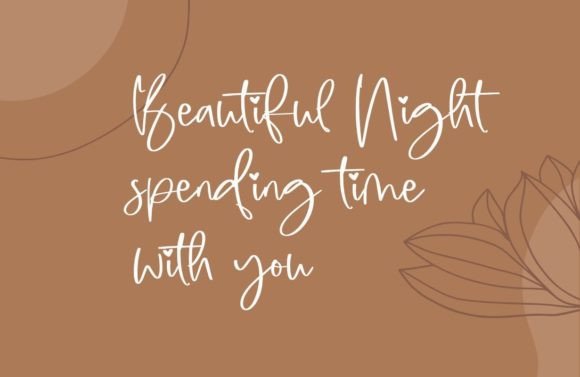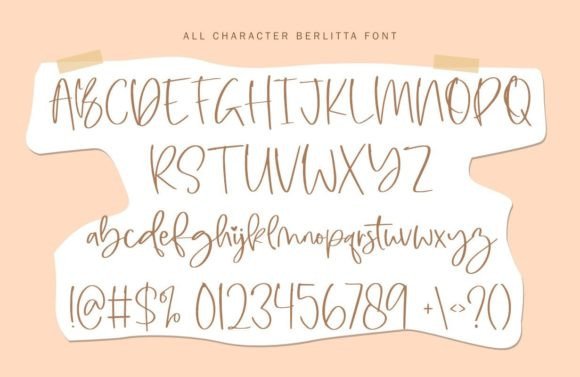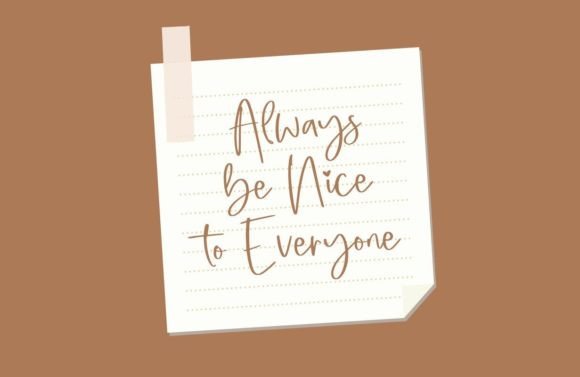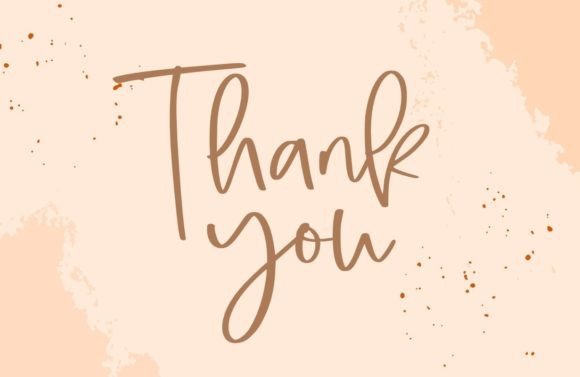
Berlitta Font
About Berlitta Font
Berlitta is an enchanting handwritten font, characterized by its flowing and graceful strokes, complemented by an elegant touch that makes it perfect for a variety of creative projects. This font invites you to infuse your favorite endeavors with a distinct charm and aesthetic appeal.
The flowing nature of Berlitta adds a dynamic and organic feel to your designs, creating a visual language that resonates with a sense of authenticity and warmth. Whether you’re working on branding, invitations, social media graphics, or any other creative venture, Berlitta provides a versatile canvas for your artistic expressions.
This font is designed to be a seamless fit for your favorite projects, allowing you to convey a personalized and handcrafted touch. Its elegance lies not only in its letterforms but also in the overall aesthetic that it imparts to your compositions.
Embrace the versatility of Berlitta as it adapts effortlessly to various design contexts. Its timeless style ensures that your projects maintain a classic and enduring appeal, making it suitable for a wide range of applications.
In conclusion, Berlitta is more than just a font; it’s a creative companion that enhances the visual storytelling of your projects. Let its flowing and elegant characteristics be the catalyst for creating designs that capture attention and leave a lasting impression.